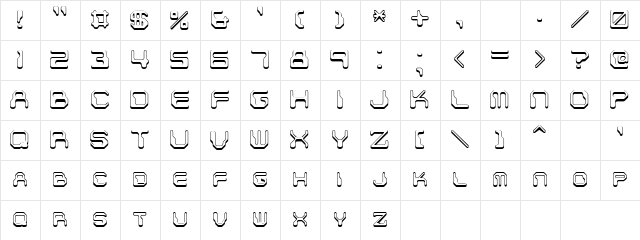
BuGed Bullets Ol Regular
Design Context for BuGed Bullets Ol Typeface
BuGed Bullets Ol is a composed and adaptable typeface that performs quietly and consistently across a wide range of design contexts.